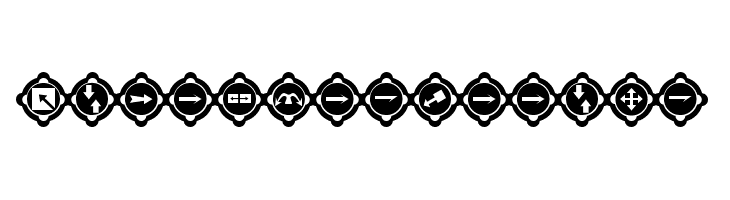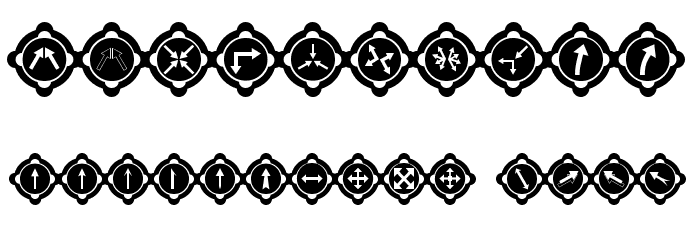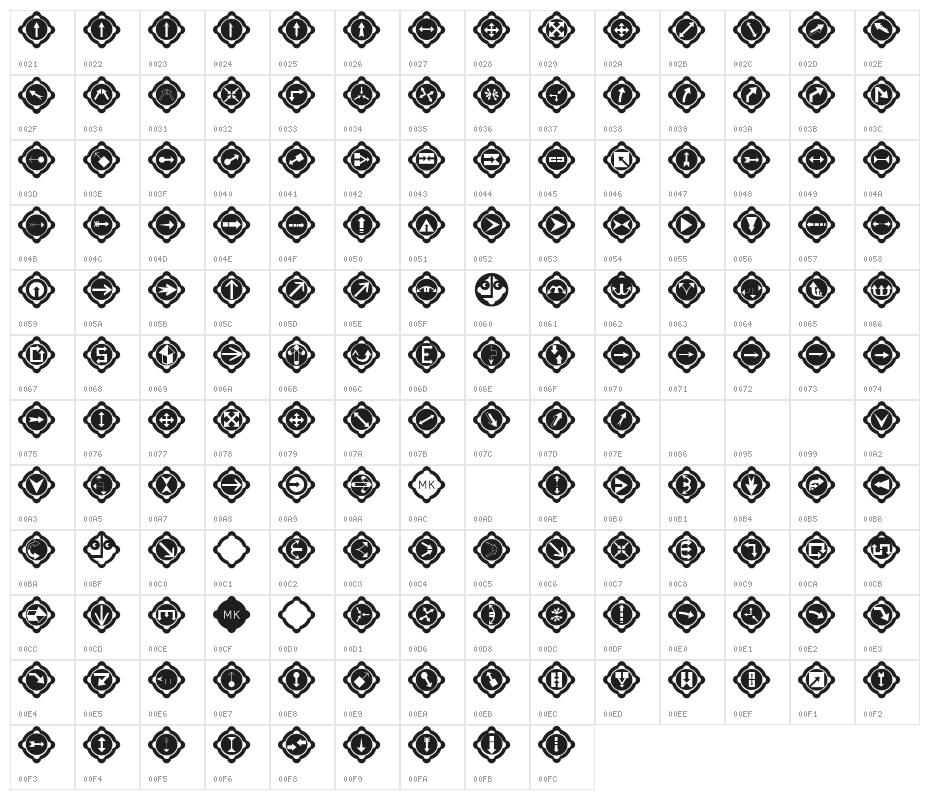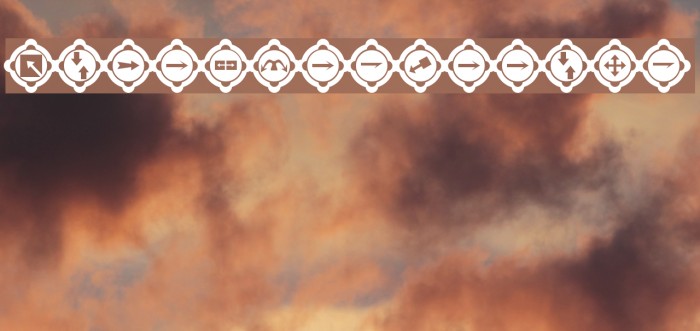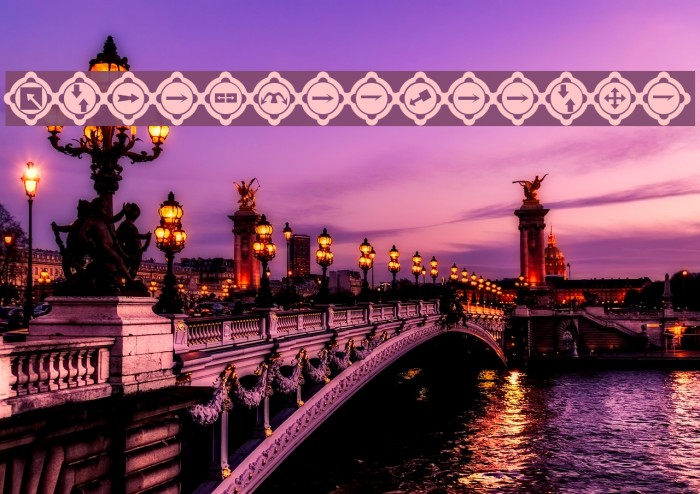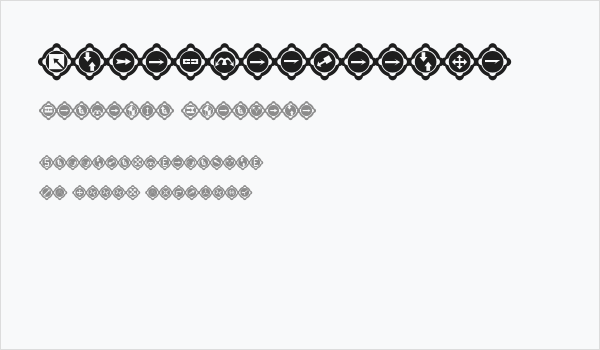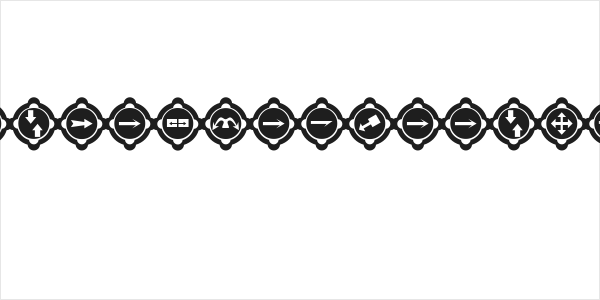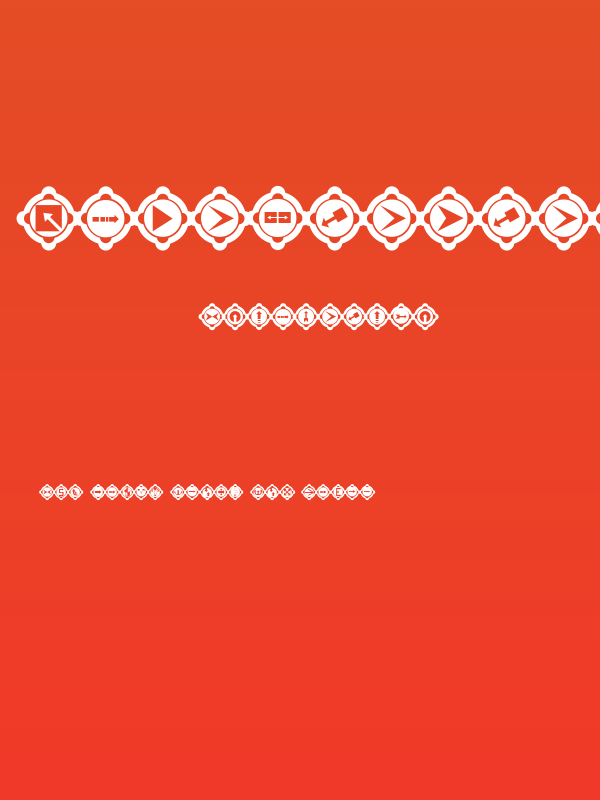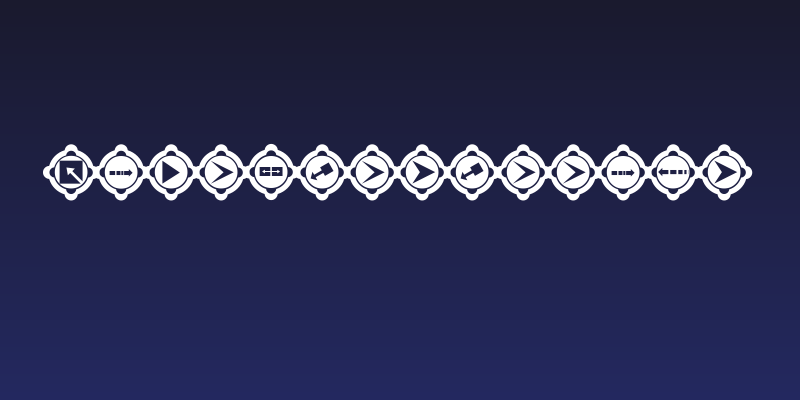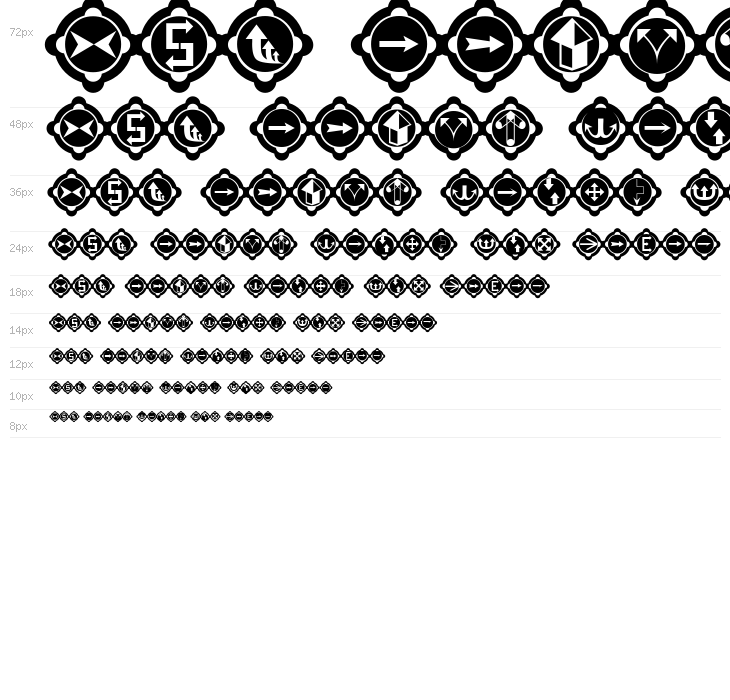
FourEarsArrows Font
FourEarsArrows Description
A decorative display font consisting of various arrow symbols enclosed in ornate, symmetrical quatrefoil frames. Each glyph features a unique arrow design, with bold, high-contrast strokes and a strong geometric presence. The style is highly ornamental and visually striking, making it suitable for attention-grabbing applications.
| Overall Style | Decorative, Ornamental, Geometric |
| Use Case | Icons, Decorative elements, Signage, Themed graphics |
| Proposed Projects | Wayfinding signage, infographics, decorative borders, game UI elements, themed posters. |